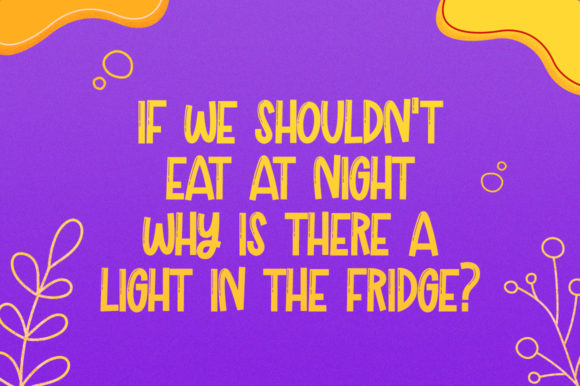
Scroobius Font
Scroobius is a cute and quirky display font. Get creative with its childlike playfulness, and use it to brighten up any kids and school project!